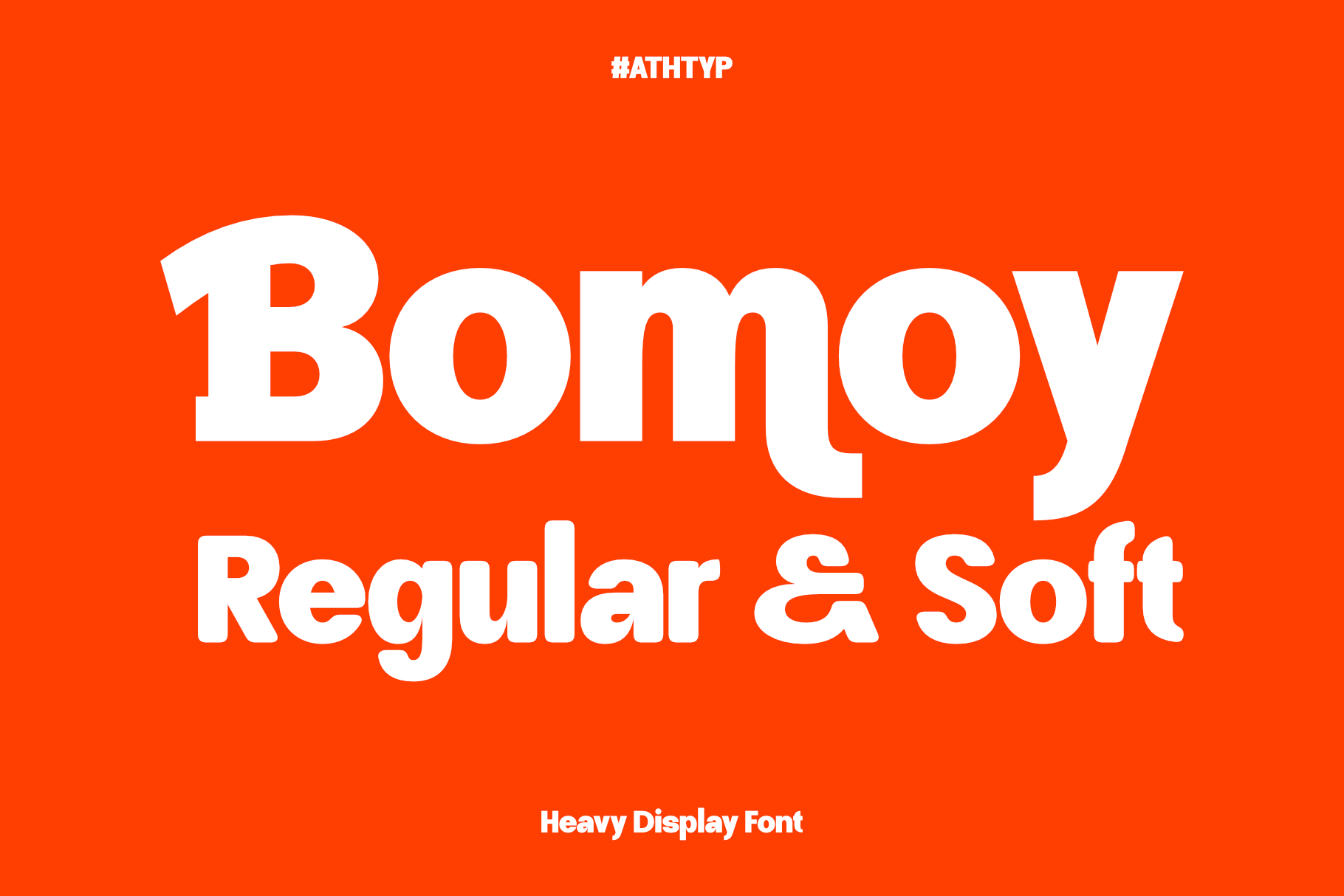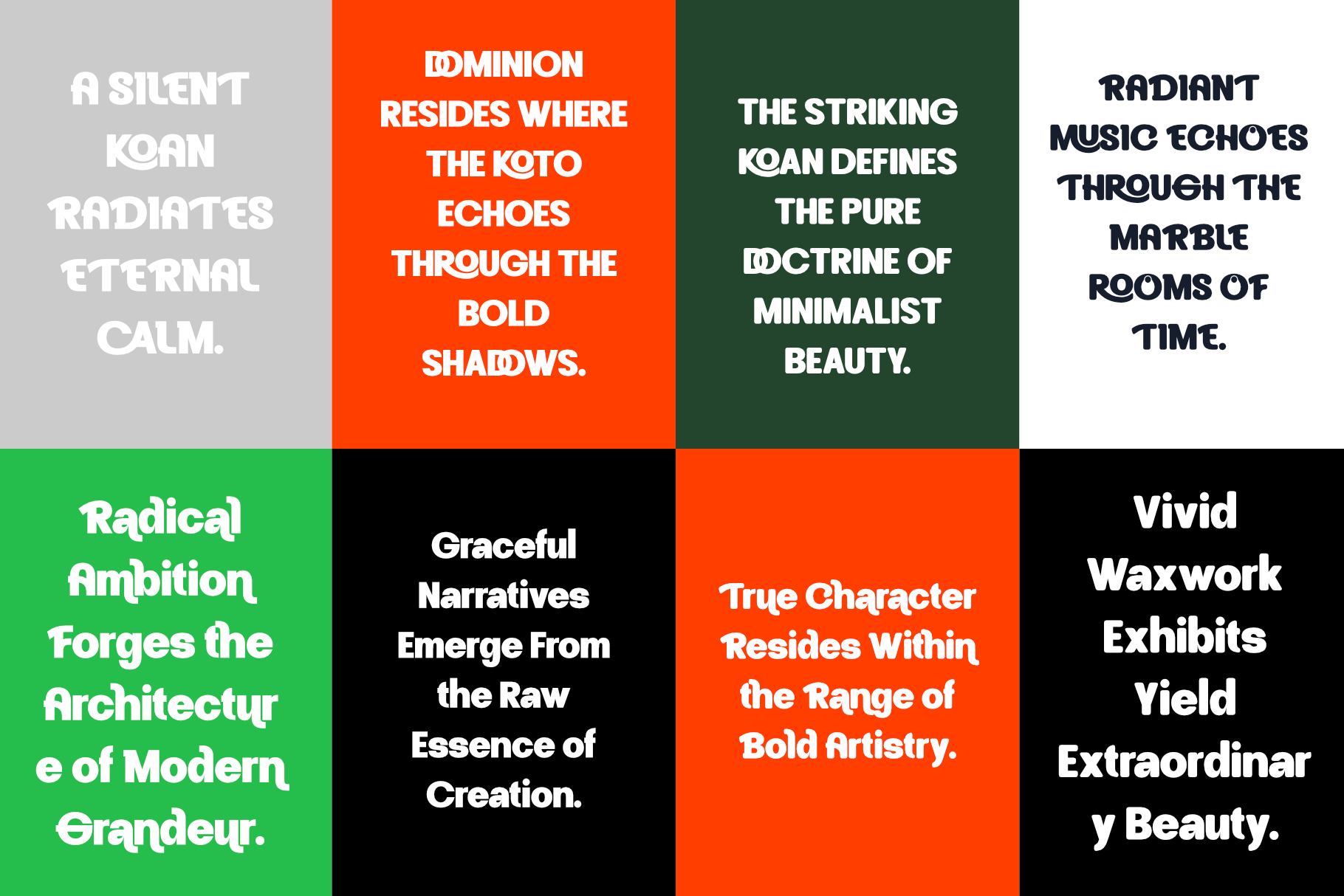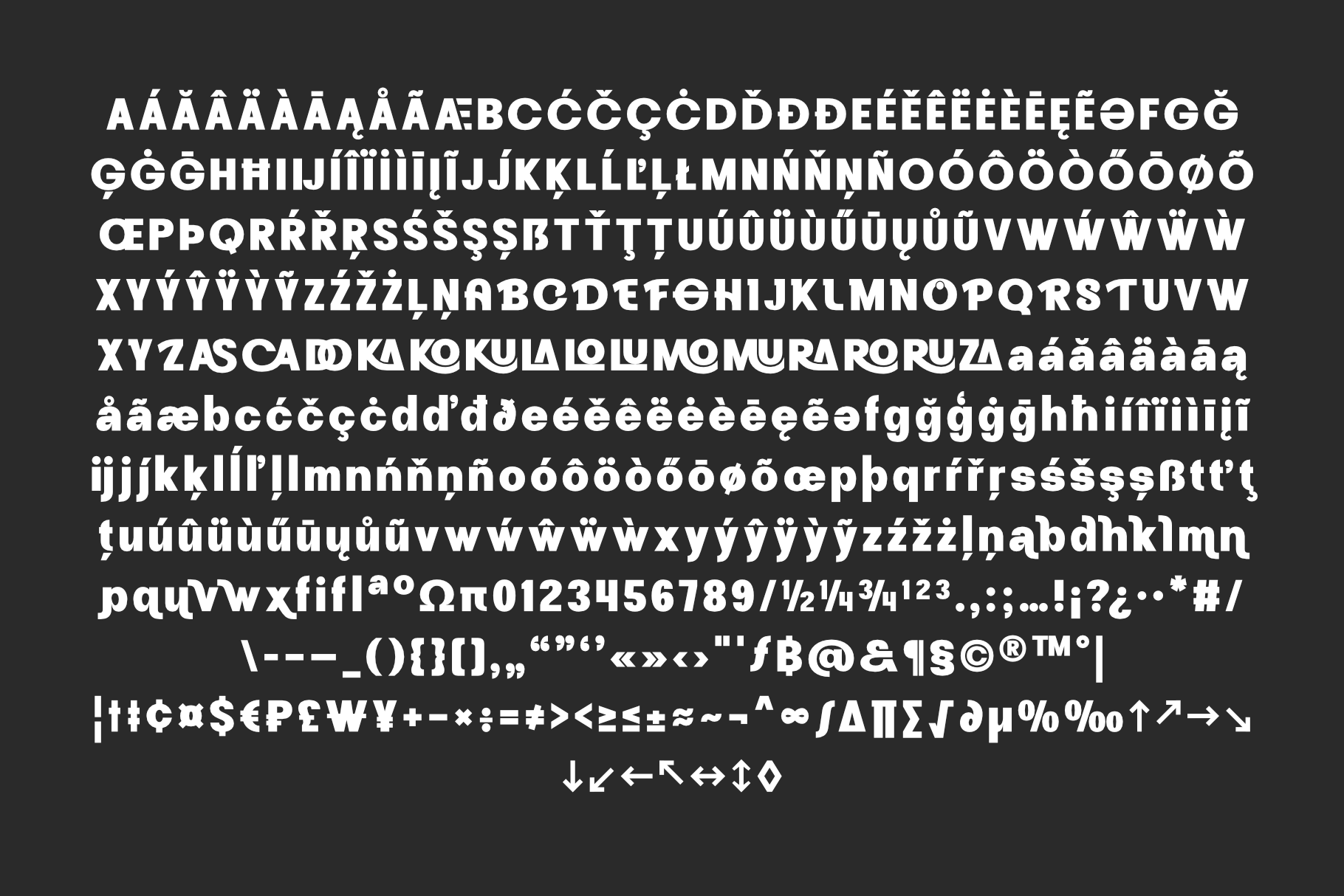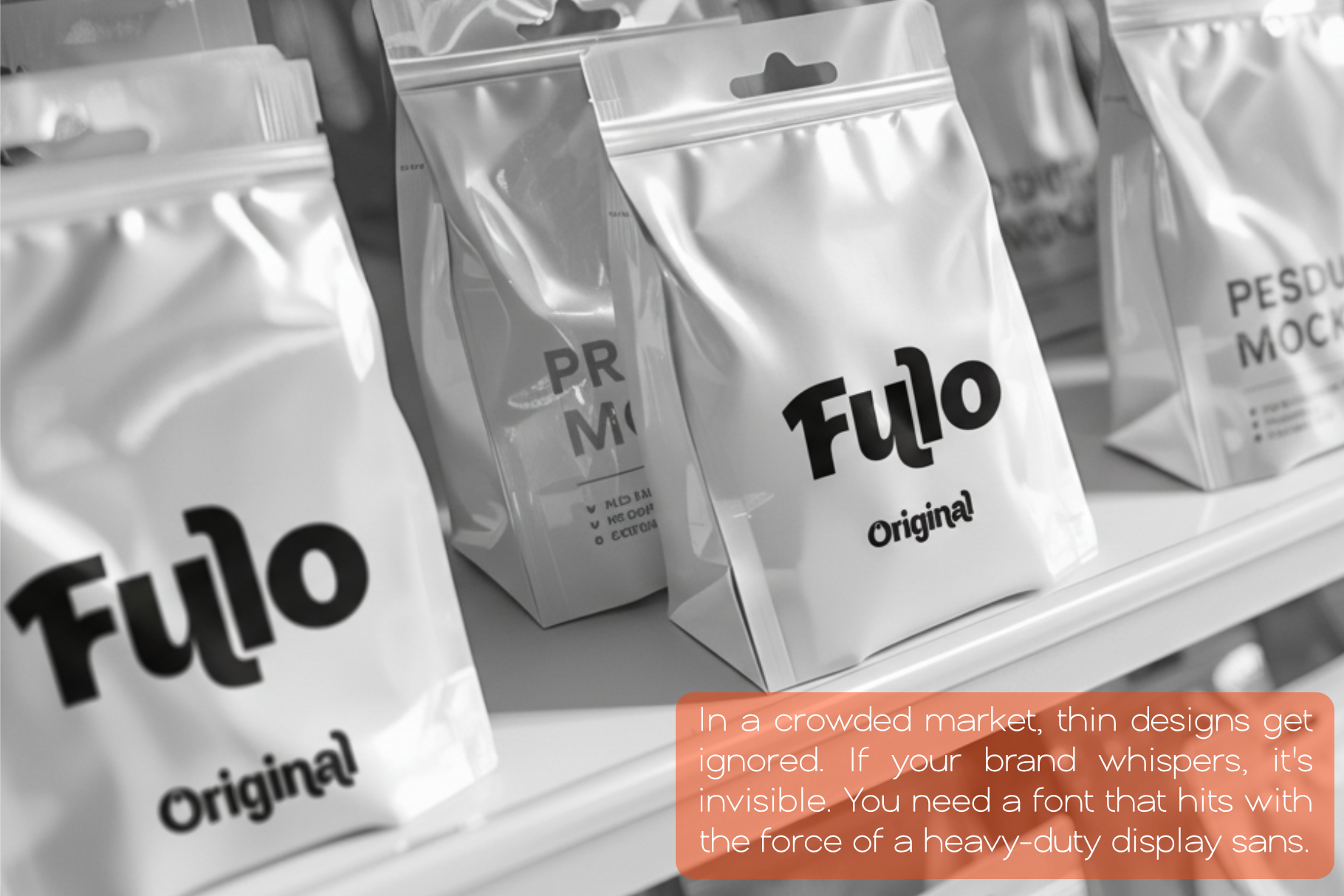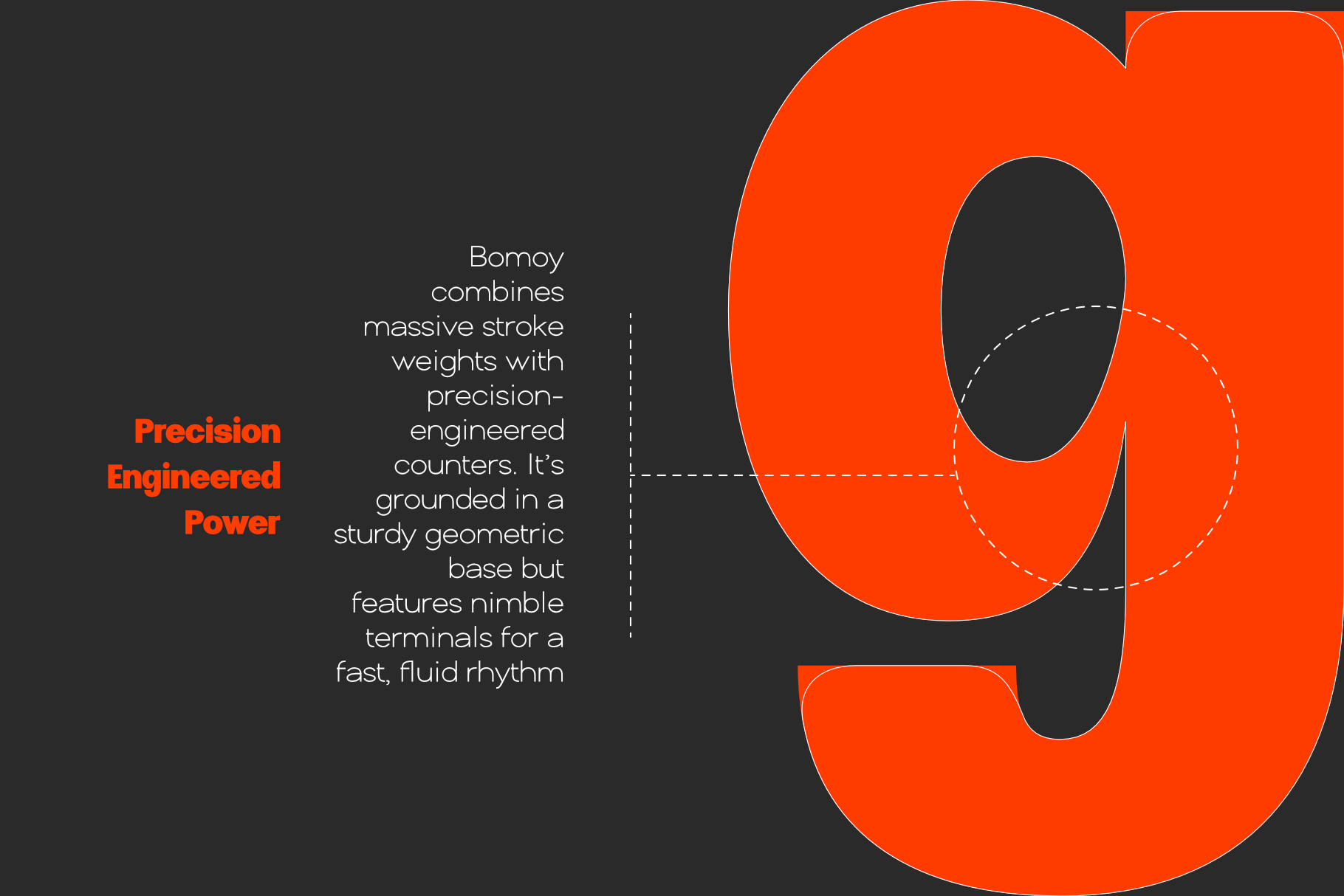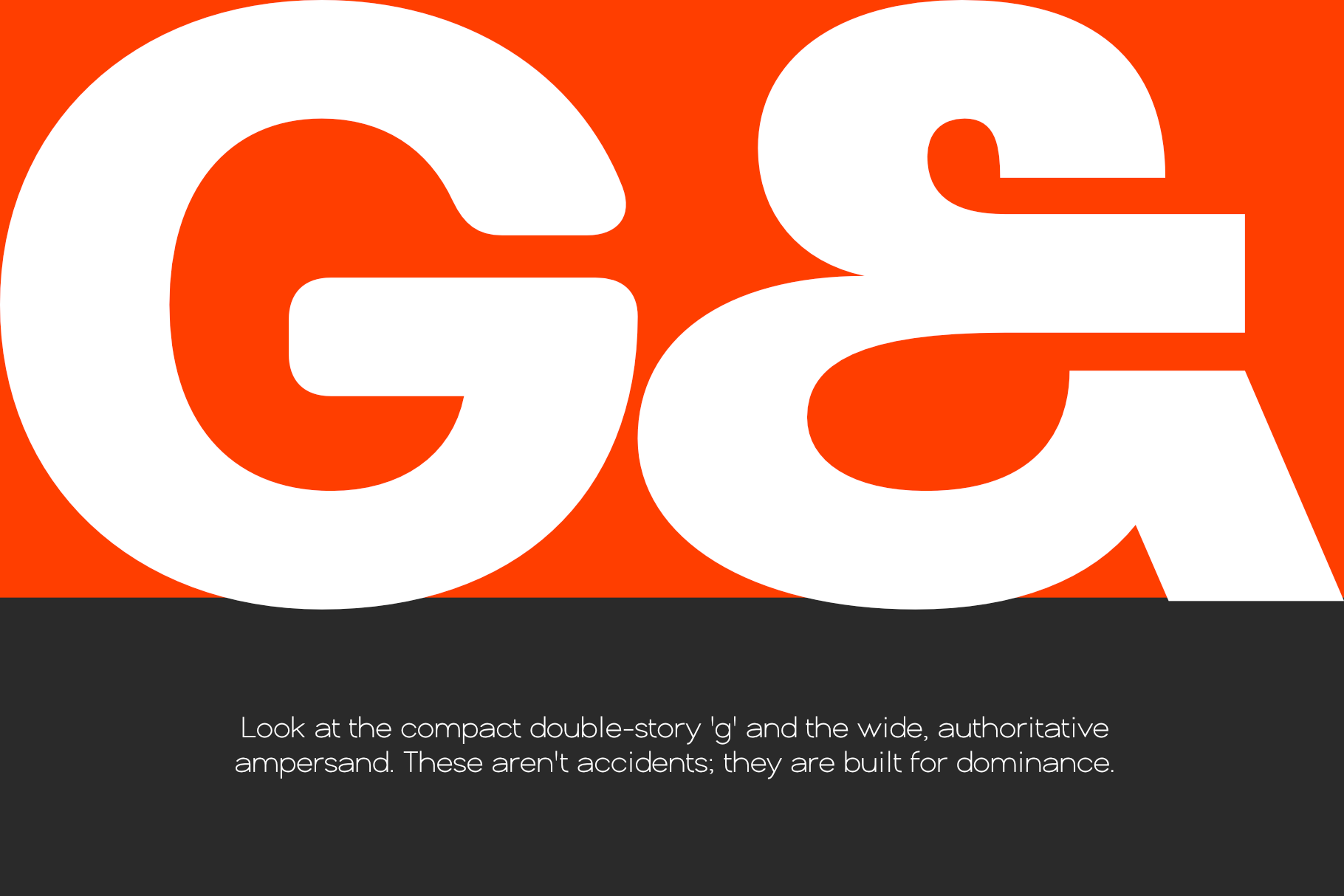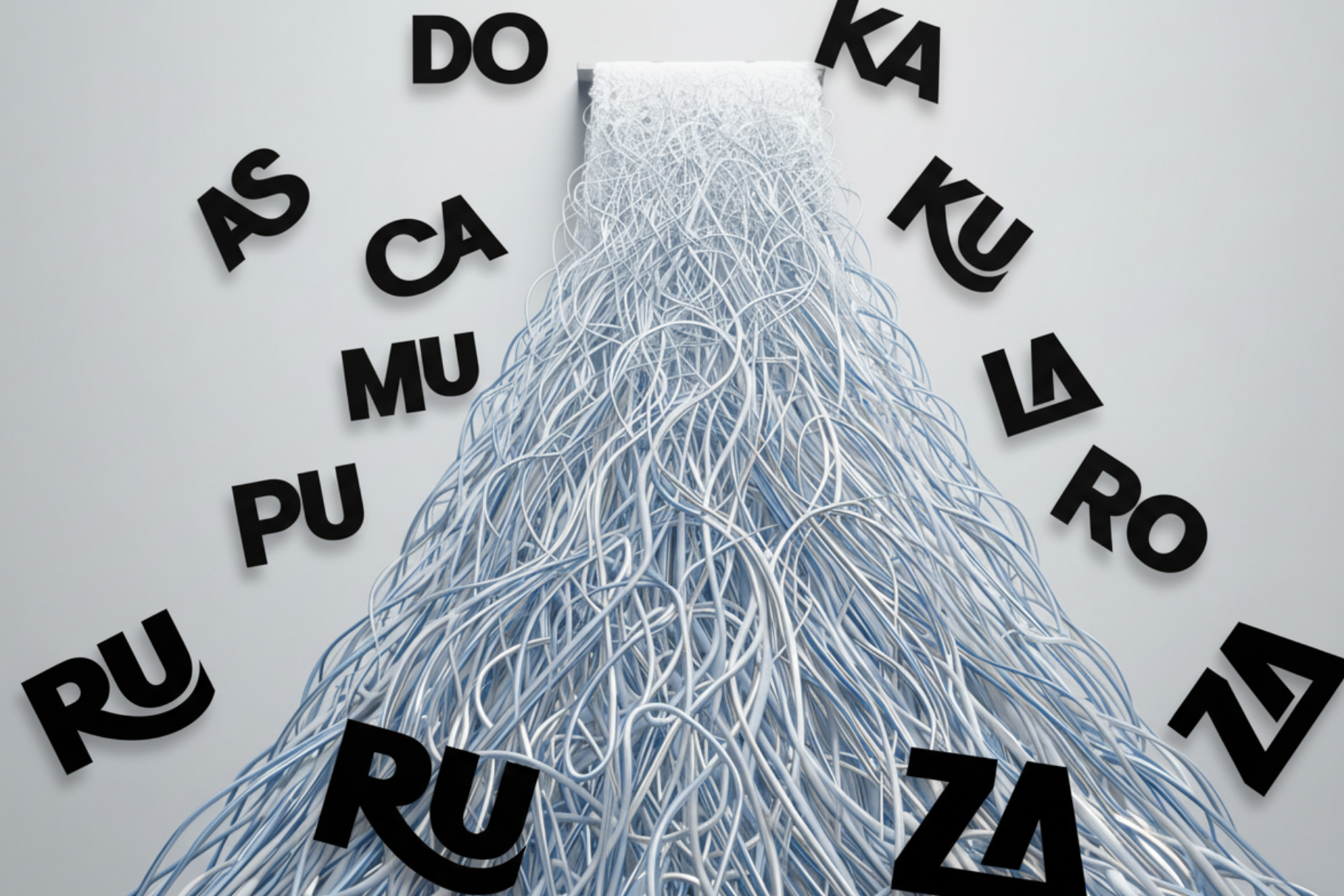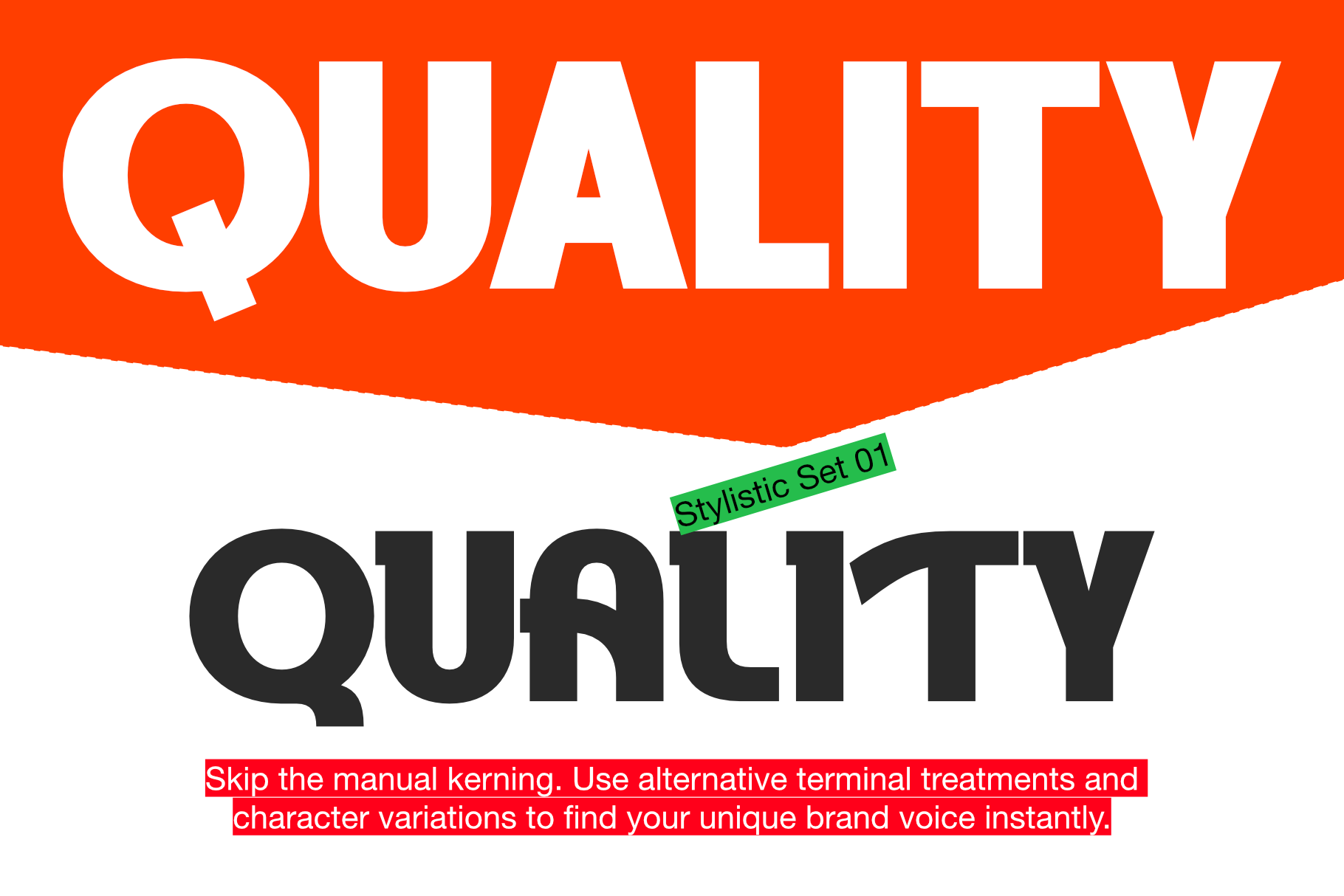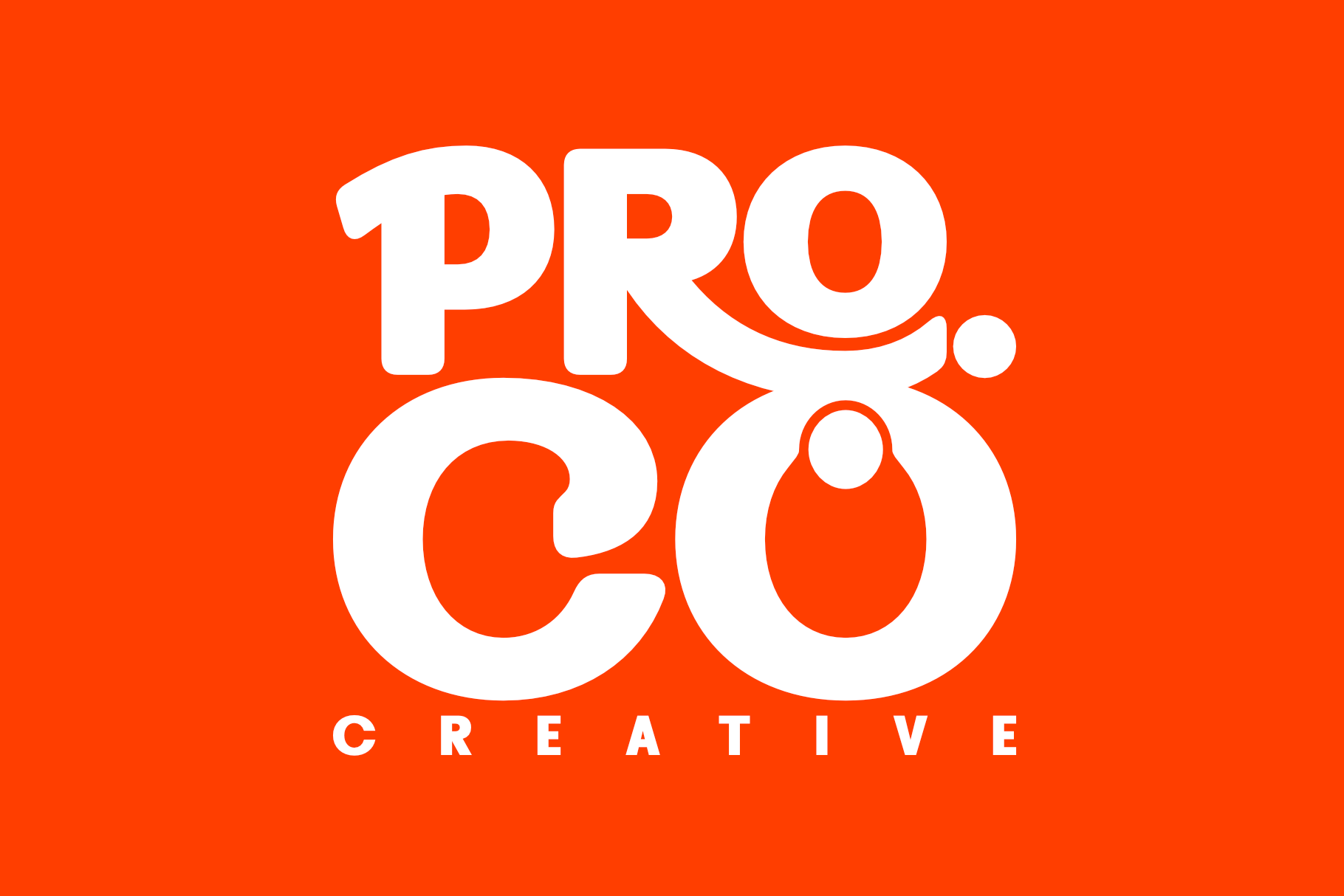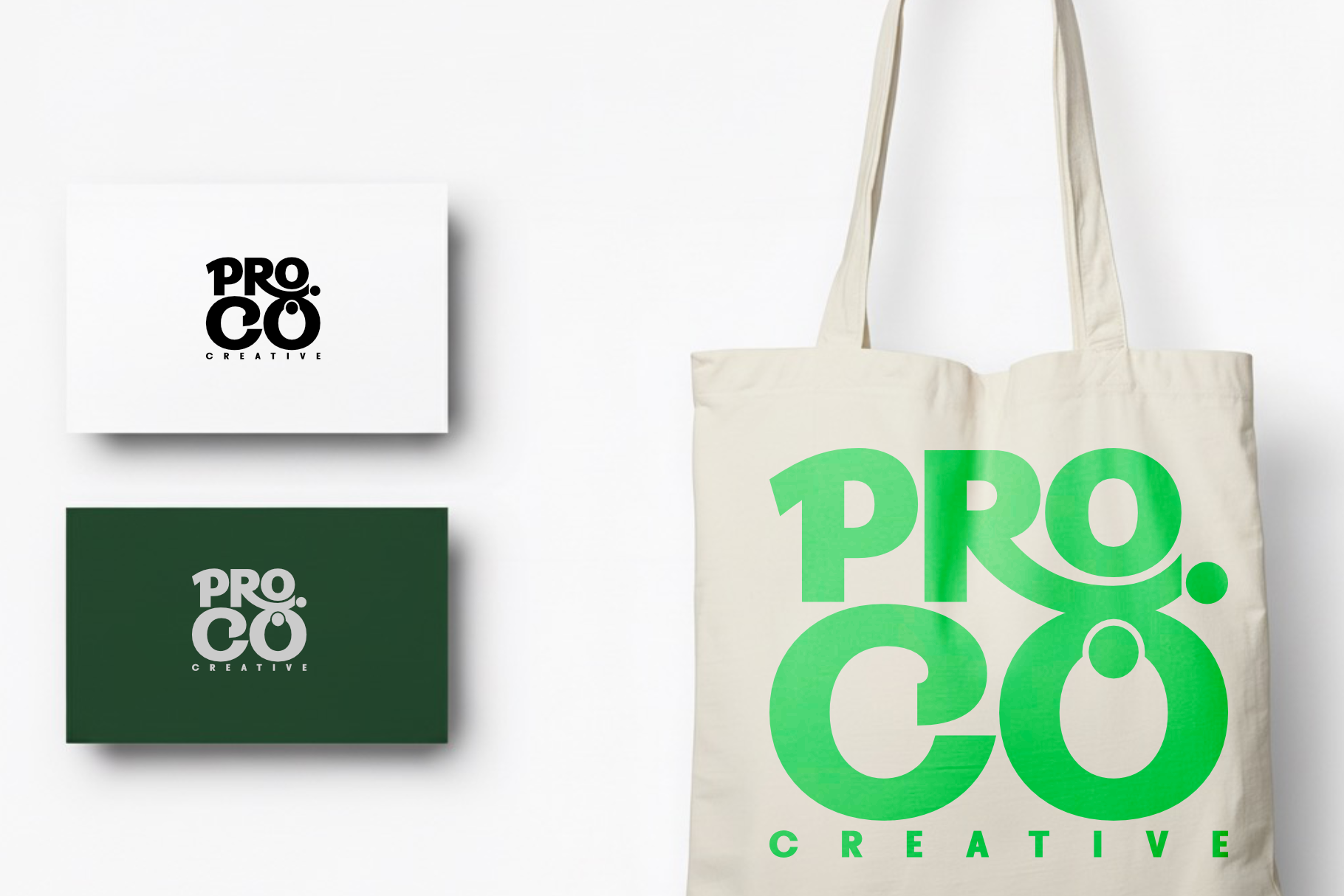
Bomoy Heavy Sans Serif
A Grand Slam for Bold Visual Communication
Bomoy is a powerhouse sans serif font designed for designers who need maximum impact. With its ultra-heavy stems and tight counters, it captures the raw energy of urban streetwear and high-end editorial layouts. This isn’t just a font; it’s a structural tool for branding. The specimen reveals a massive x-height and minimal white space within characters, creating a dense, ‘brick-like’ textural rhythm. Whether you are working on a massive billboard or a compact logo, Bomoy maintains its legibility through intentional kerning and sharp, geometric construction. The typeface includes a dedicated ‘Soft’ version, allowing for a transition from aggressive sharp edges to approachable, rounded terminals without losing the characteristic weight.
LIGATURE
Extensive OpenType support including fi, fl, ff, ffi, ffl, st, ct, tt, Th, Wh, fj, Qu, gy, rj, and ft to ensure smooth textural rhythm.
STYLISTIC SETS
Bomoy includes alternative terminal treatments and character variations that allow for customized branding looks without manual kerning adjustments. Includes both hard-edge ‘Regular’ and ‘Soft’ variants. The Soft version applies a consistent radius to all external terminals, changing the mood from industrial to playful.
ANATOMY
The anatomy of Bomoy features massive stroke weights with horizontal terminals that maximize horizontal impact. The ‘g’ uses a compact double-story structure, while the ampersand is wide and authoritative.
BEST USED FOR:
Logotypes, Magazine Headlines, Poster Design, Premium Packaging